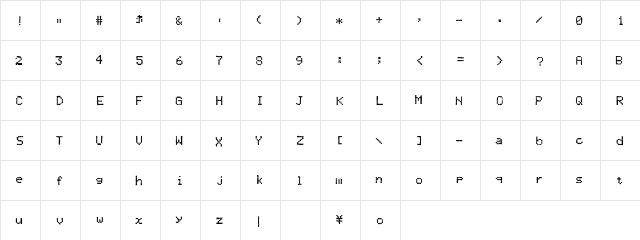
TwistyPixel Regular Font Preview
TwistyPixel Regular
TwistyPixel Regular Font Details
| Foundry | Xerographer Fonts |
| Designer | Max Infeld Xerographer Fonts |
Design Context for TwistyPixel Typeface
TwistyPixel celebrates the constraints of early digital type, turning pixel geometry into a distinctive and immediately recognisable style.
A natural choice for retro game titles, chiptune music branding, 8-bit UI, and digital nostalgia projects.
Pro Tip: Pair TwistyPixel with flat colour palettes and simple geometric UI elements to reinforce its digital aesthetic.